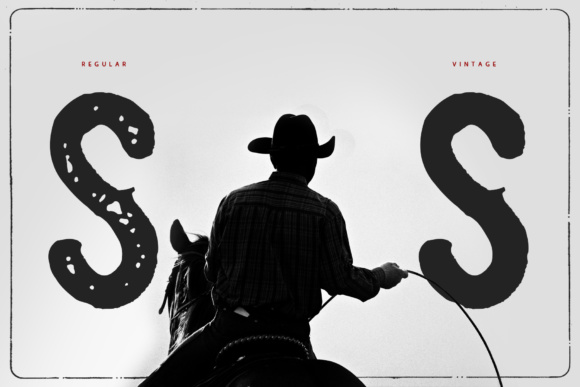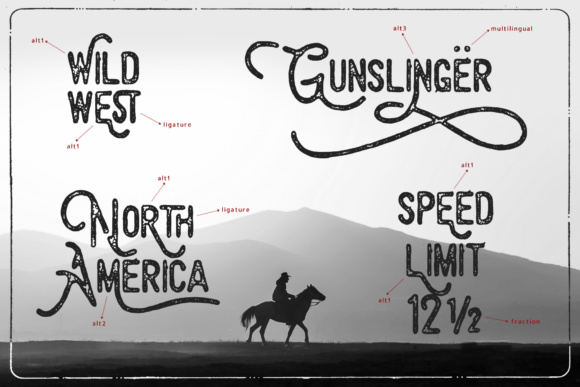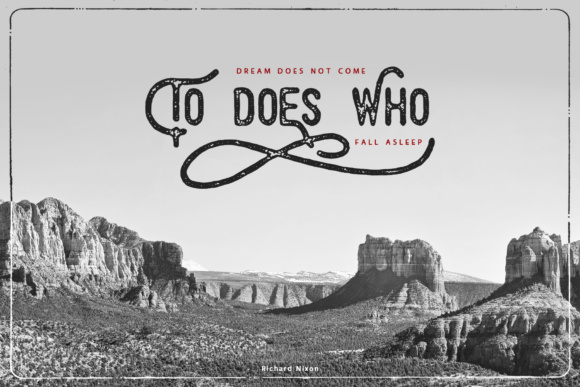
Billyforges Font
Billyforges is a gorgeous handmade font duo that was crafted to give your projects a classic, western vibe. This font duo has an Americana feel, and adds a tons of vintage yet stylish appeal to your projects.